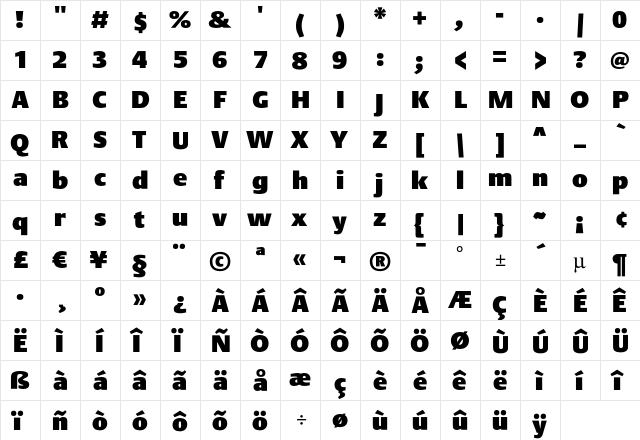
DTLArgoT UltraHeavy Font Preview
DTLArgoT UltraHeavy
Design Context for DTLArgoT Typeface
DTLArgoT is a composed and adaptable typeface that performs quietly and consistently across a wide range of design contexts.
Pro Tip: Pair DTLArgoT with a font of contrasting weight or personality to build a more expressive typographic hierarchy.